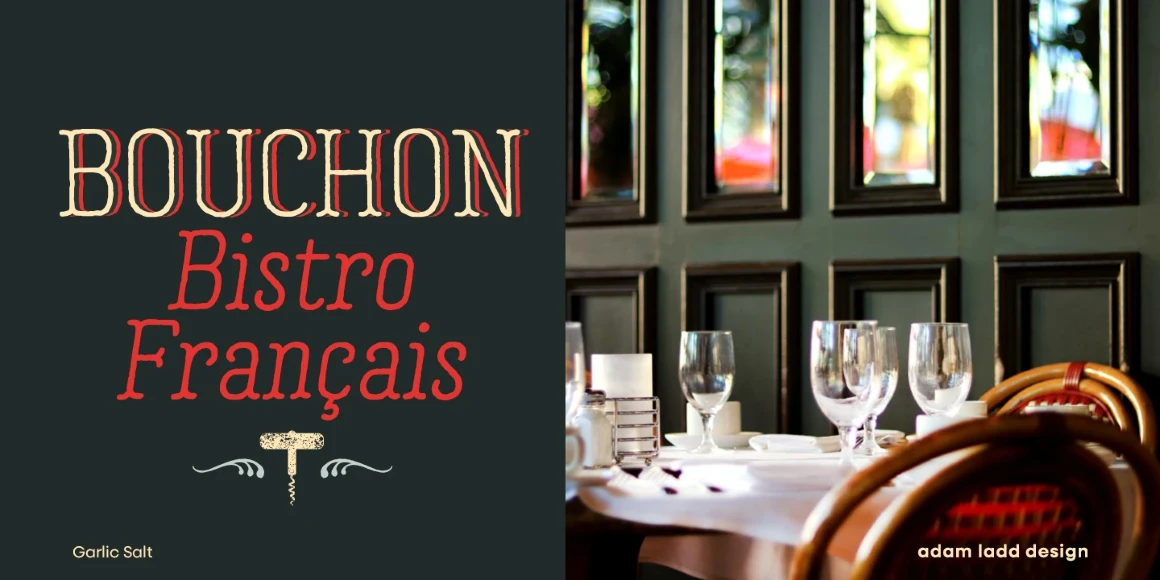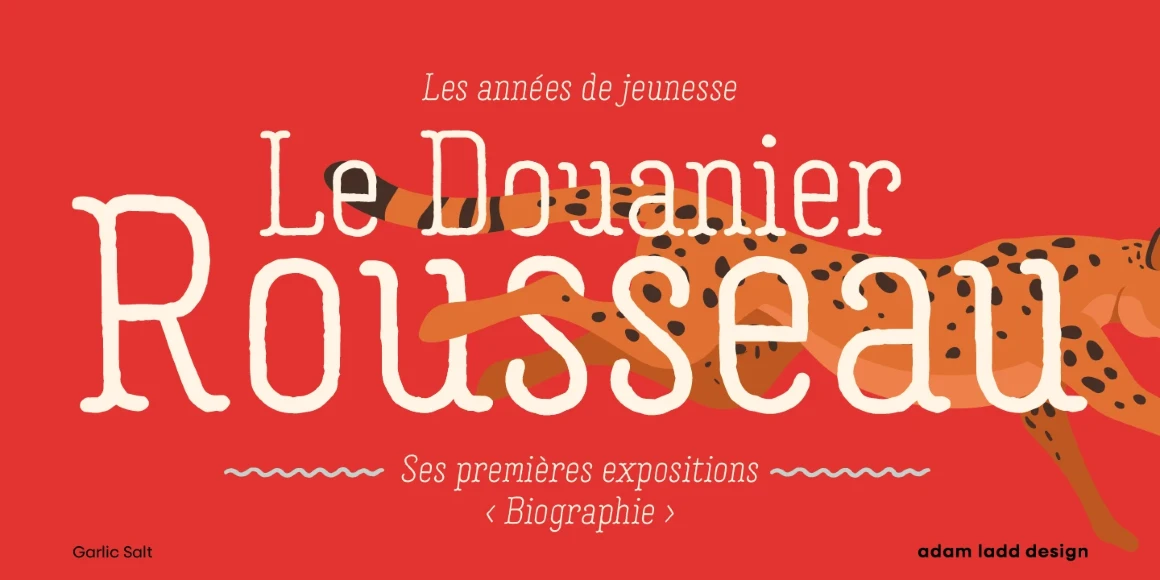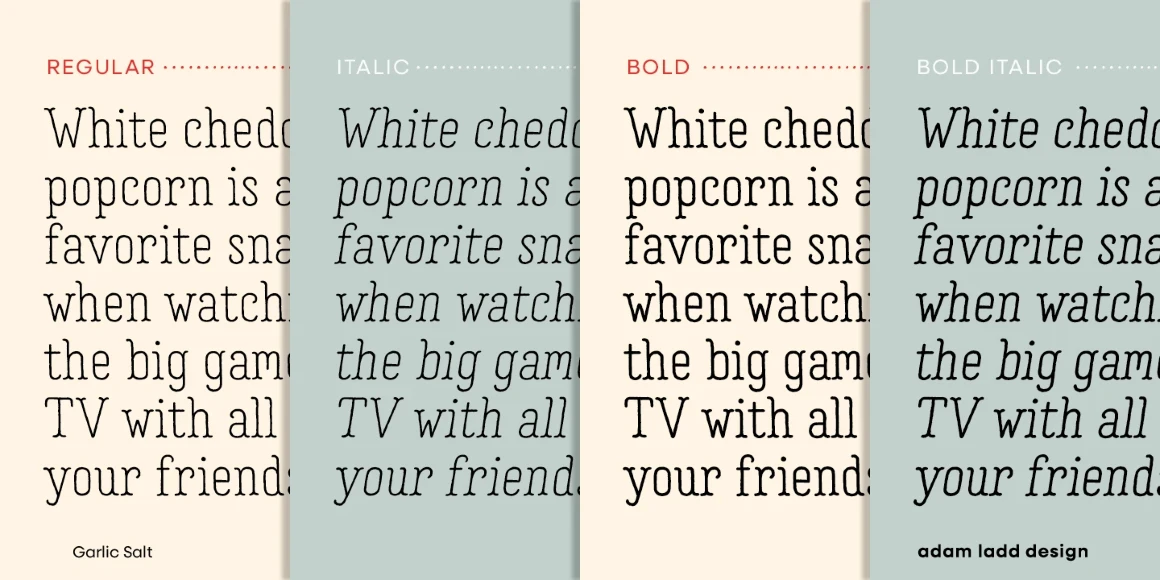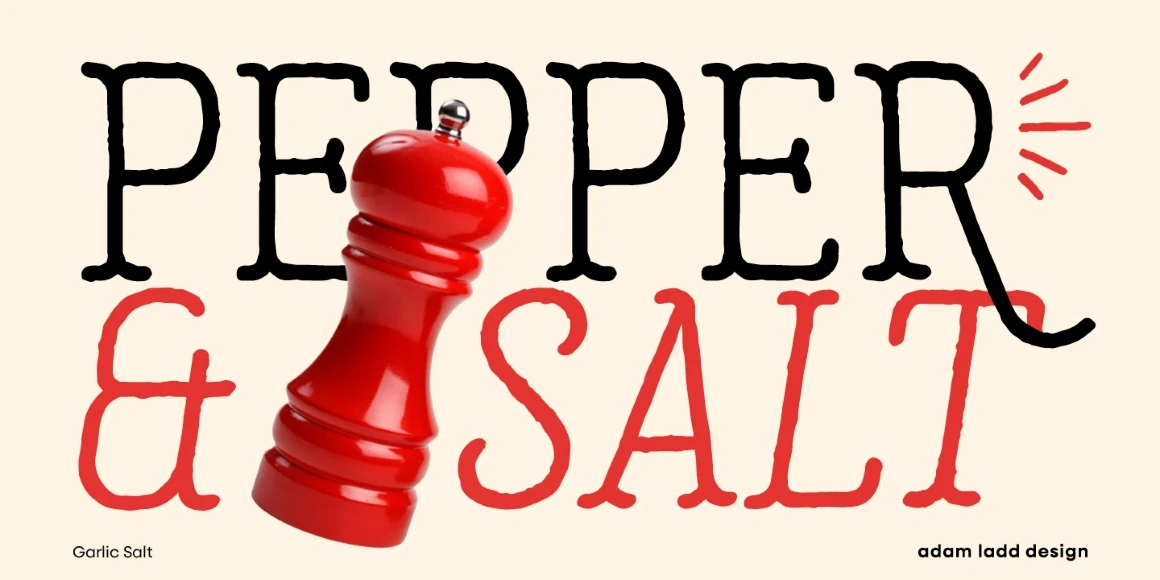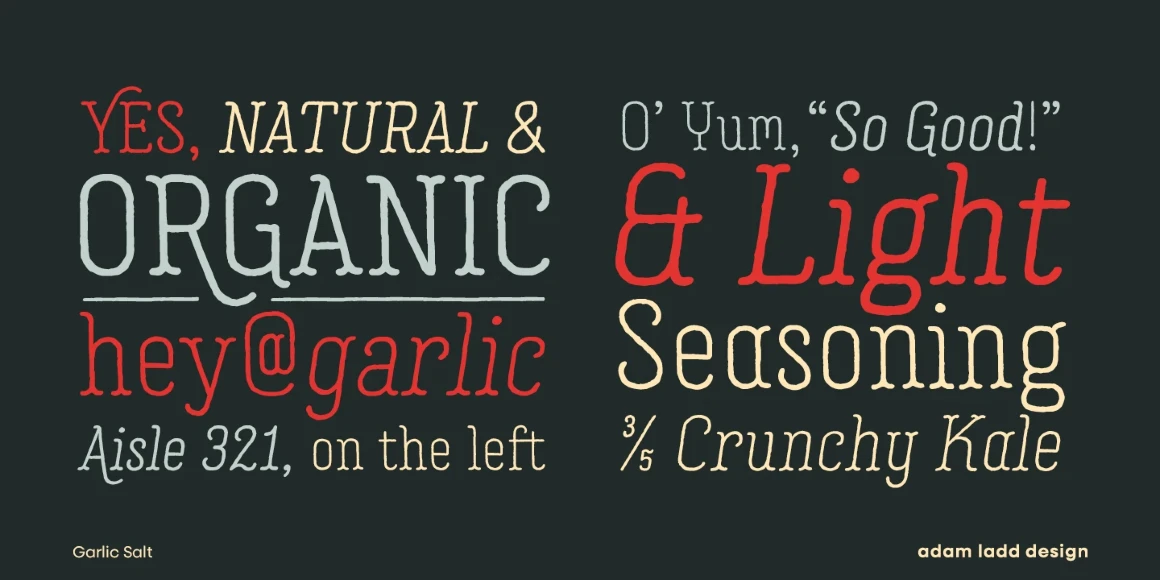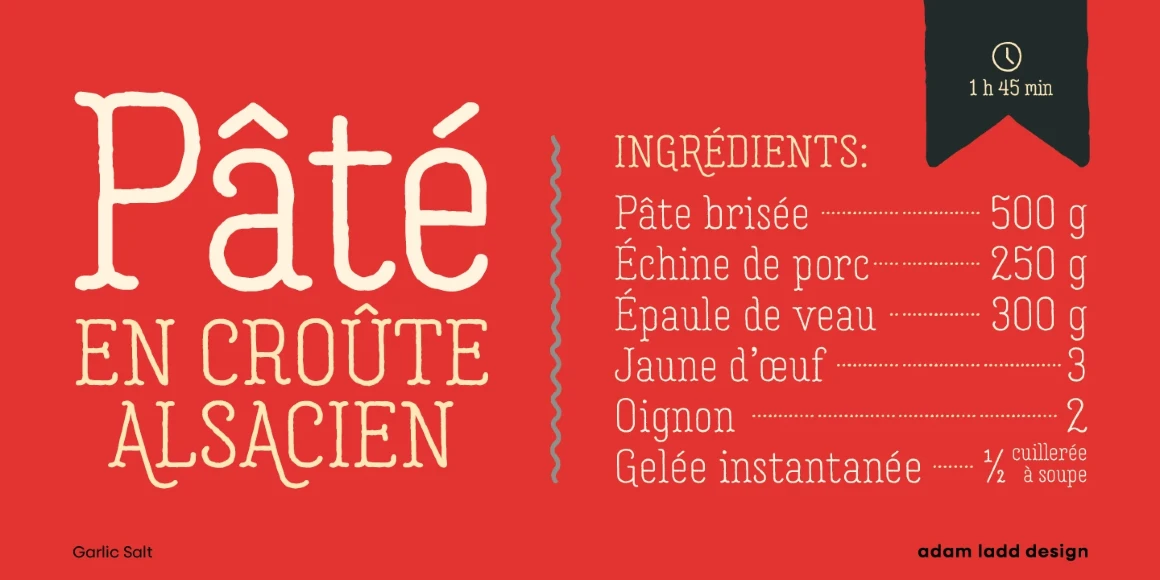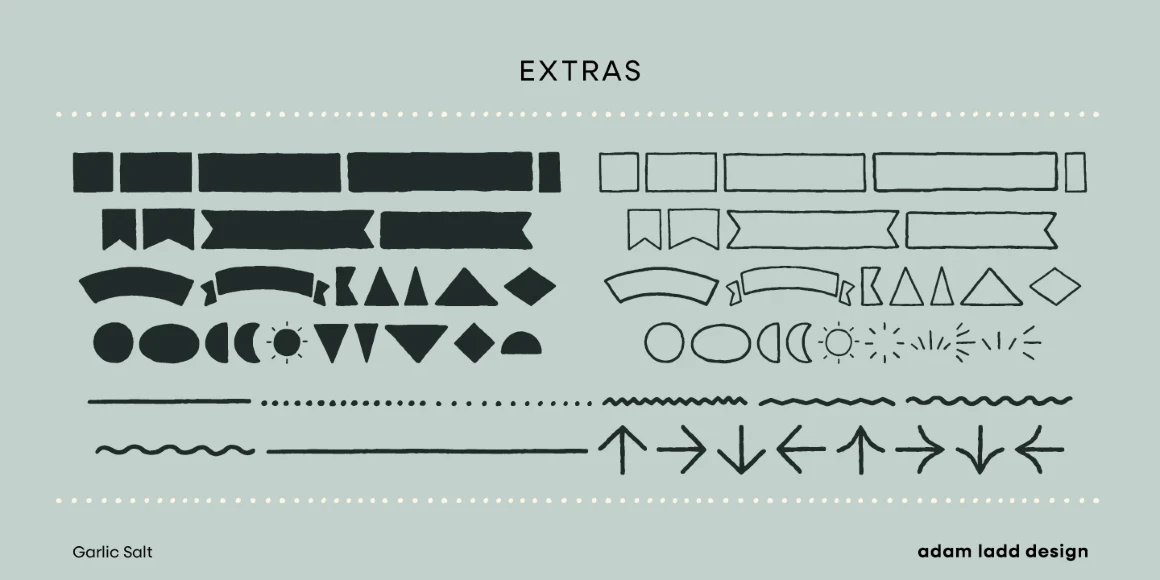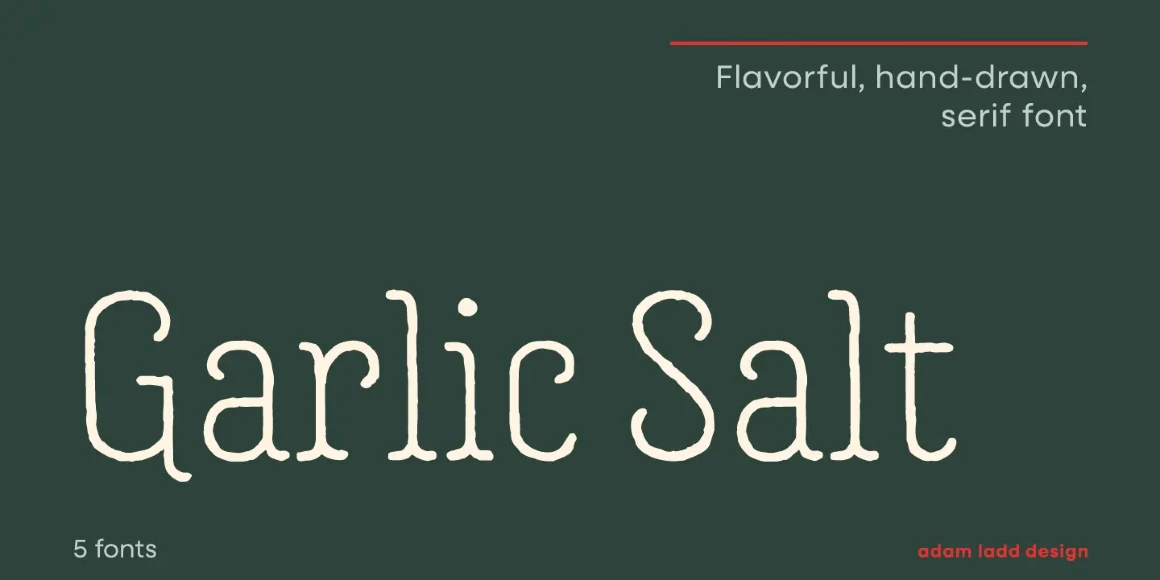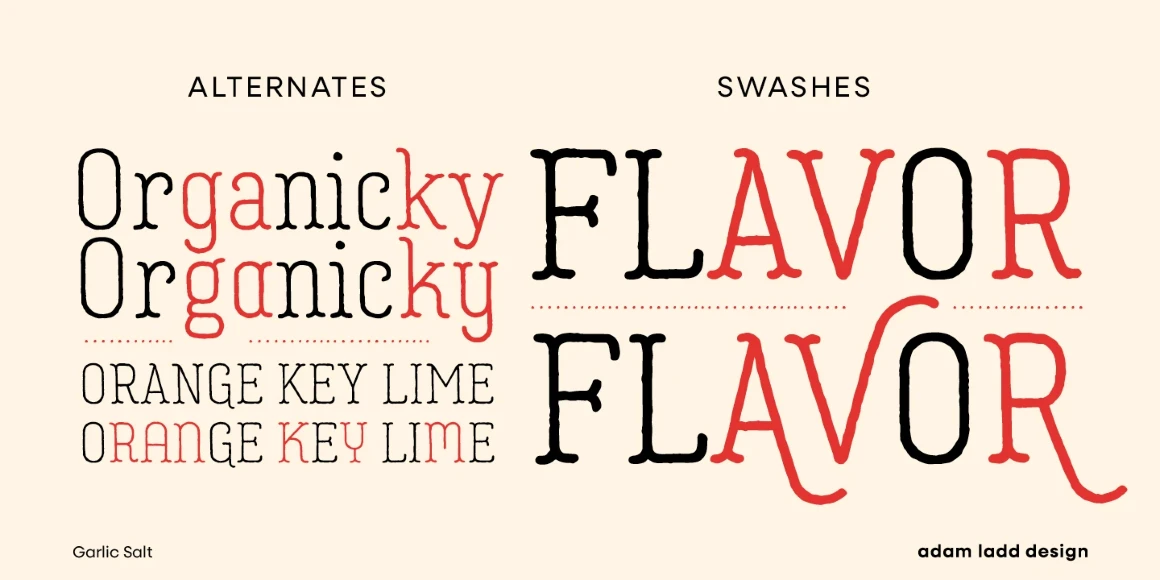
Garlic Salt
By Adam Ladd
Garlic Salt Regular
Garlic Salt Regular Extras
Garlic Salt Regular Italic
Garlic Salt Bold
Garlic Salt Bold Italic
Garlic Salt is a flavorful, hand-drawn, serif font family with a distinctly monolinear mix of whimsical and modern. While semi-condensed proportions are space-saving for your designs, the large x-height and open counter forms mean it works well set large or small. Show off the texture at display sizes or use it smaller, and it remains pleasantly readable because of the carefully shaped letterforms. Garlic Salt also has an Extras font of matching ornaments and dingbats to complement your designs!